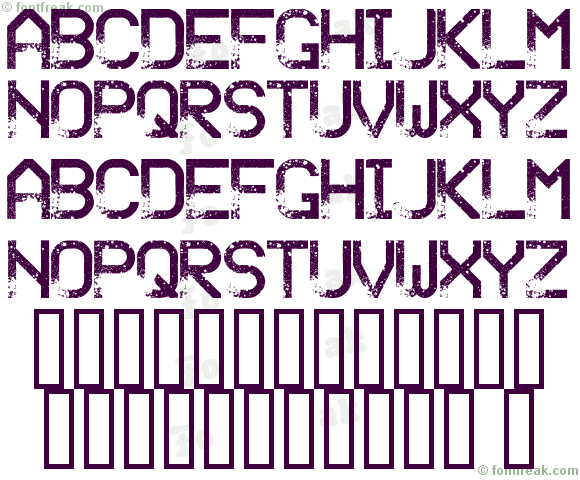
Sandy Ravage Regular
About Sandy Ravage Regular
Sandy Ravage Regular by Chris Vile is a distinctive display font that falls under the decorative category. This typeface is characterized by its rough, weathered appearance, which gives it a unique and edgy aesthetic. The stroke weight varies throughout the letters, creating an engaging contrast that captures attention. The spacing between characters is relatively tight, enhancing its bold presence while maintaining readability. Decorative elements, such as distressed textures and jagged edges, contribute to its rugged charm, making it perfect for projects that require a touch of character.
The Sandy Ravage Regular font is exceptionally versatile, making it suitable for various creative applications. It shines in contexts like movie posters, where its dramatic flair can enhance visual storytelling. Additionally, the font works well for album covers, giving music projects an authentic and gritty vibe. Small business owners can utilize it for modern restaurant menus, providing a unique branding opportunity. It also complements graphic designs for outdoor events or adventure-themed marketing materials, effectively conveying a sense of ruggedness and spontaneity. Content creators looking to make a statement in their social media graphics will find this font an appealing choice.
Targeted primarily at graphic designers, small business owners, and content creators, Sandy Ravage Regular is a font that stands out in a crowded marketplace. Its distinct visual style not only captures attention but also evokes a sense of adventure and authenticity. For those seeking a font that is both functional and full of personality, the Sandy Ravage Regular font free download offers an opportunity to elevate design projects with its unique aesthetic. This font is a must-have for anyone looking to make a bold visual impact in their work.